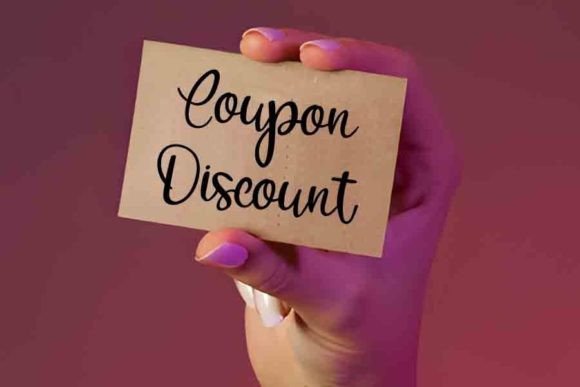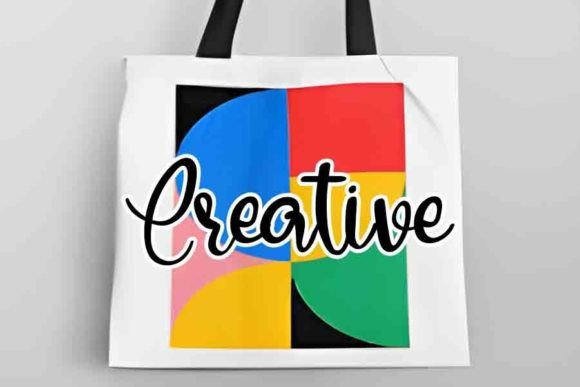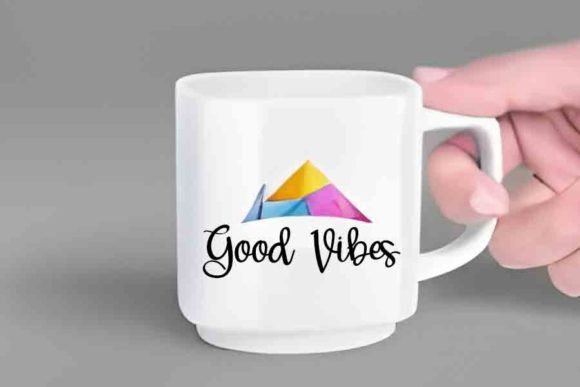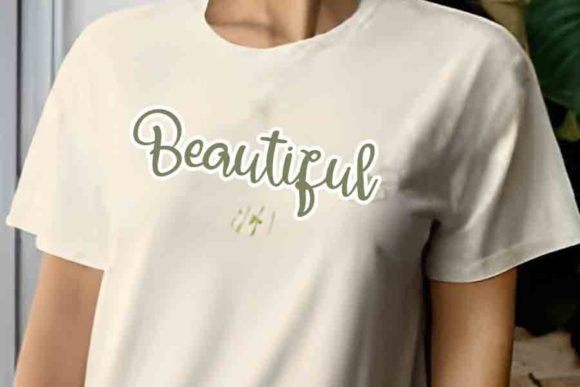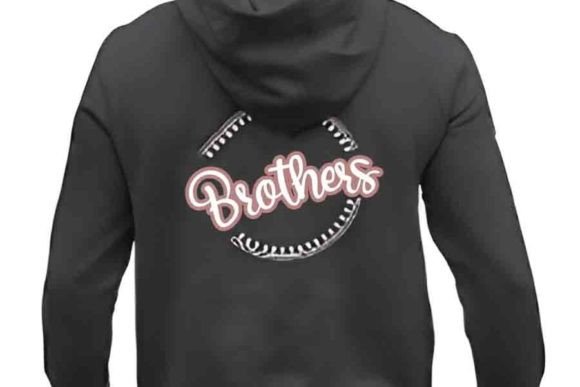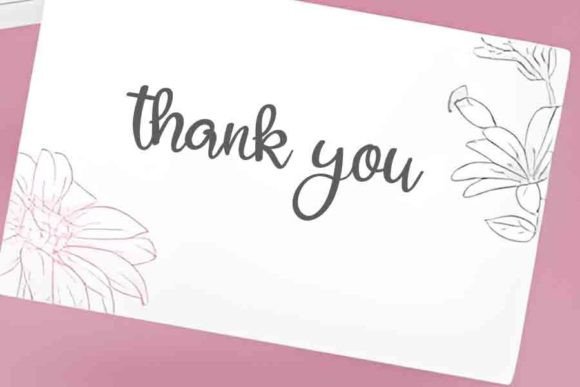
Introducing Endurance Font: The Epitome of Elegance and Versatility
Are you on the hunt for a font that embodies the perfect blend of delicacy and elegance? Look no further than Endurance Font, a stunning handwritten font that is sure to capture your heart. With its distinct and well-balanced letters, Endurance Font is a masterpiece that can elevate your designs to new heights. In this article, we’ll dive into the world of Endurance Font, exploring its features, benefits, and uses, as well as provide tips and inspiration for designers and crafters.
The Story Behind Endurance Font
Endurance Font is a carefully crafted handwritten font that exudes a sense of sophistication and refinement. Its unique and balanced letters make it an exceptional choice for a wide range of design projects, from wedding invitations and branding materials to digital content and craft projects. The font’s creator aimed to design a typeface that would be both elegant and versatile, and we can confidently say that they’ve succeeded.
Key Features of Endurance Font
- Delicate and Elegant: Endurance Font boasts a delicate and elegant appearance that is sure to add a touch of sophistication to your designs.
- Handwritten Style: The font’s handwritten style gives it a personal and organic feel, making it perfect for designs that require a human touch.
- Distinct and Well-Balanced Letters: Each letter in Endurance Font is carefully crafted to ensure that the font is easy to read and visually appealing.
- Versatile: Endurance Font is incredibly versatile, making it suitable for a wide range of design projects, from print to digital.
Benefits of Using Endurance Font
So, why should you choose Endurance Font for your next design project? Here are just a few benefits of using this exceptional font:
- Adds Elegance and Sophistication: Endurance Font can instantly elevate your designs, adding a touch of elegance and sophistication.
- Enhances Readability: The font’s clear and balanced letters ensure that your text is easy to read, making it perfect for body text and headings.
- Versatile and Adaptable: Endurance Font can be used in a variety of design projects, from wedding invitations and branding materials to digital content and craft projects.
- Unique and Memorable: The font’s distinctive style ensures that your designs will stand out from the crowd, making them more memorable and engaging.
Using Endurance Font in Your Designs
Endurance Font is an incredibly versatile font that can be used in a wide range of design projects. Here are a few ideas to get you started:
- Wedding Invitations: Use Endurance Font to create beautiful and elegant wedding invitations that set the tone for the big day.
- Branding Materials: Add a touch of sophistication to your branding materials, including business cards, letterheads, and brochures.
- Digital Content: Use Endurance Font to create engaging and visually appealing digital content, including blog posts, social media graphics, and email newsletters.
- Craft Projects: Add a personal touch to your craft projects, including handmade cards, scrapbooking, and DIY decorations.
To get the most out of Endurance Font, here are a few tips and inspiration to keep in mind:
- Experiment with Colors: Endurance Font looks stunning in a variety of colors, so don’t be afraid to experiment and find the perfect hue for your design.
- Mix and Match Fonts: Combine Endurance Font with other fonts to create a unique and visually appealing typography.
- Use it for Headings and Titles: Endurance Font is perfect for headings and titles, adding a touch of elegance and sophistication to your designs.
| Font Name | Endurance Font |
| Author | Merry Joana |
In conclusion, Endurance Font is a delicate and elegant handwritten font that is sure to capture your heart. With its distinct and well-balanced letters, Endurance Font is a masterpiece that can elevate your designs to new heights. Whether you’re a designer, crafter, or simply someone who appreciates beautiful typography, Endurance Font is an exceptional choice for any design project. So why wait? Fall in love with Endurance Font and create spectacular designs that showcase its incredibly versatile style.